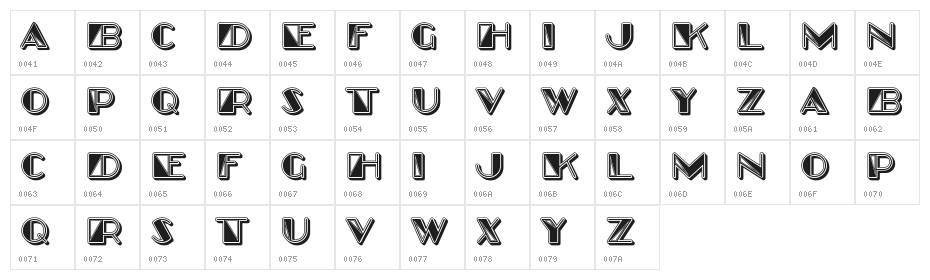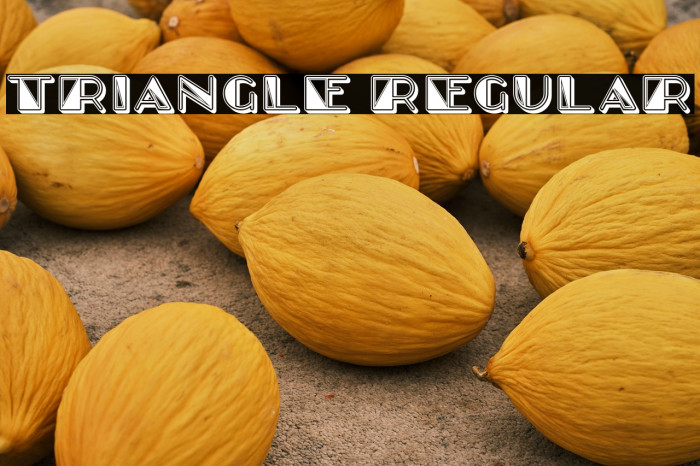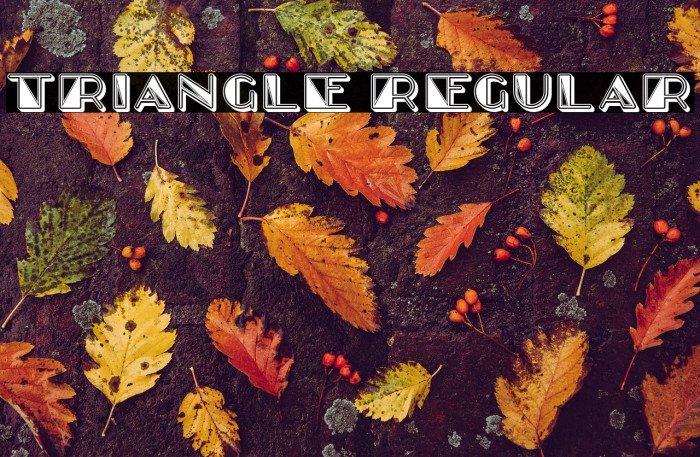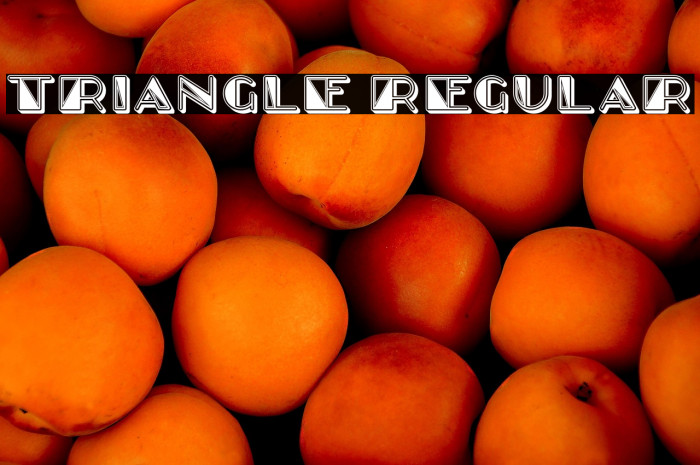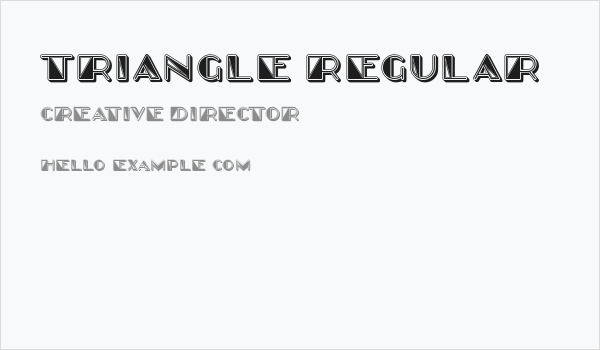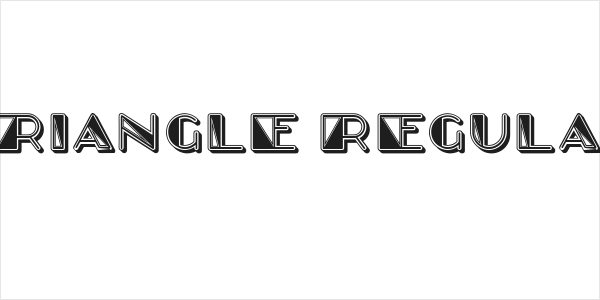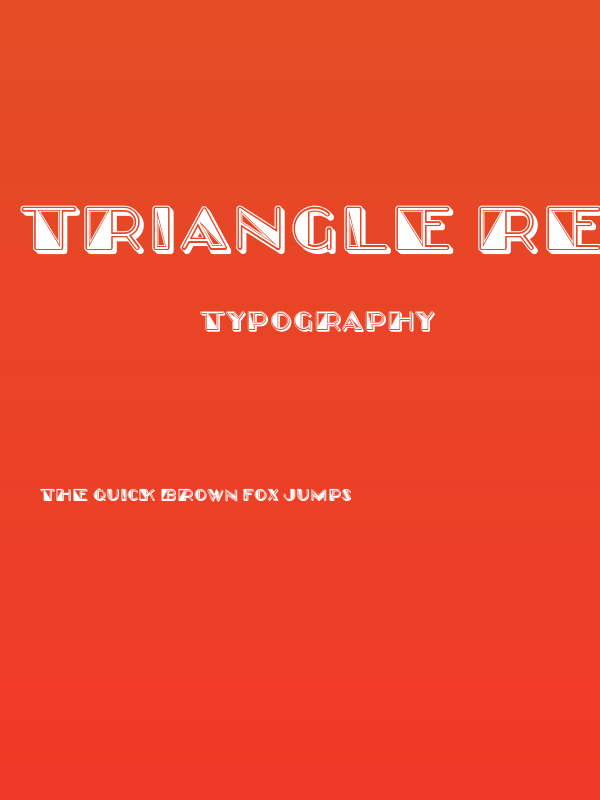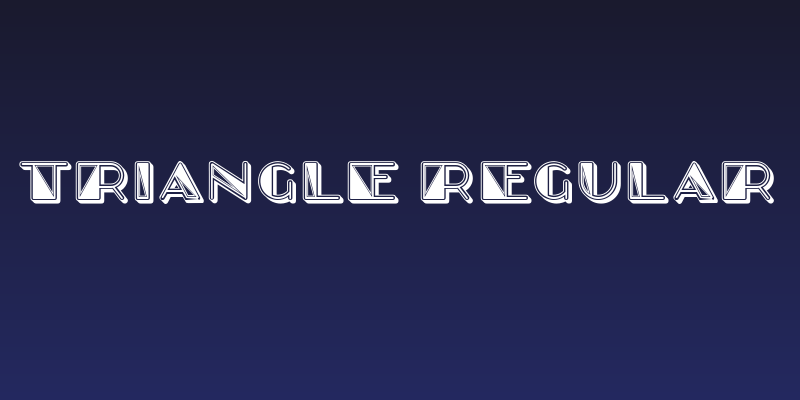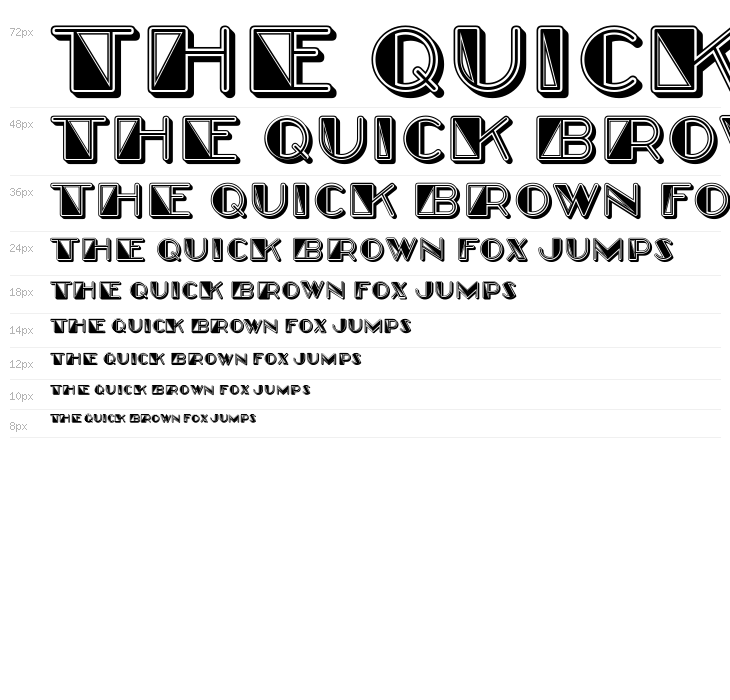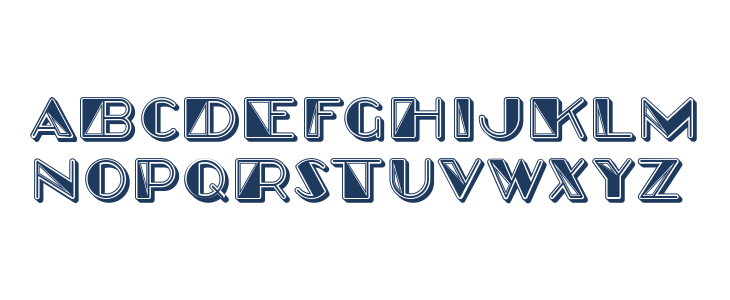
Triangle Regular Font
Triangle Regular Description
This font features a bold and geometric style, characterized by its use of triangular shapes within each letterform. The design incorporates a strong contrast between thick and thin lines, creating a dynamic and eye-catching appearance. The uppercase letters are particularly striking, with each character displaying a unique triangular cutout that adds depth and dimension. The overall look is modern and edgy, making it suitable for contemporary design projects. The font's distinct style is both decorative and functional, offering a unique twist on traditional letterforms.
ContrastHigh
Overall StyleModern
Use CaseLogos, Headlines, Posters
Proposed ProjectsIdeal for branding, posters, and modern graphic design projects.